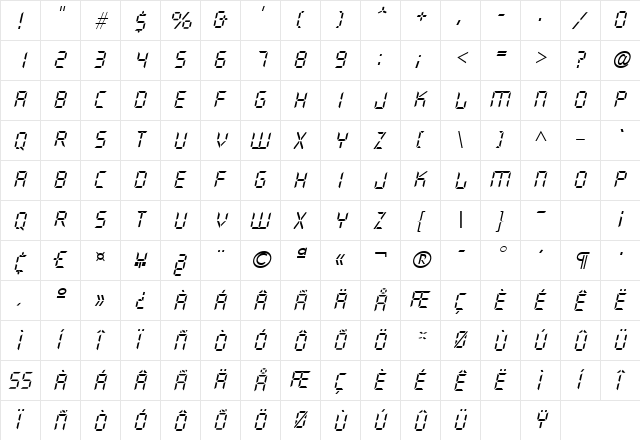
QuartzL Italic
Design Context for QuartzL Typeface
QuartzL is a composed and adaptable typeface that performs quietly and consistently across a wide range of design contexts. The slanted form adds forward momentum and visual energy.